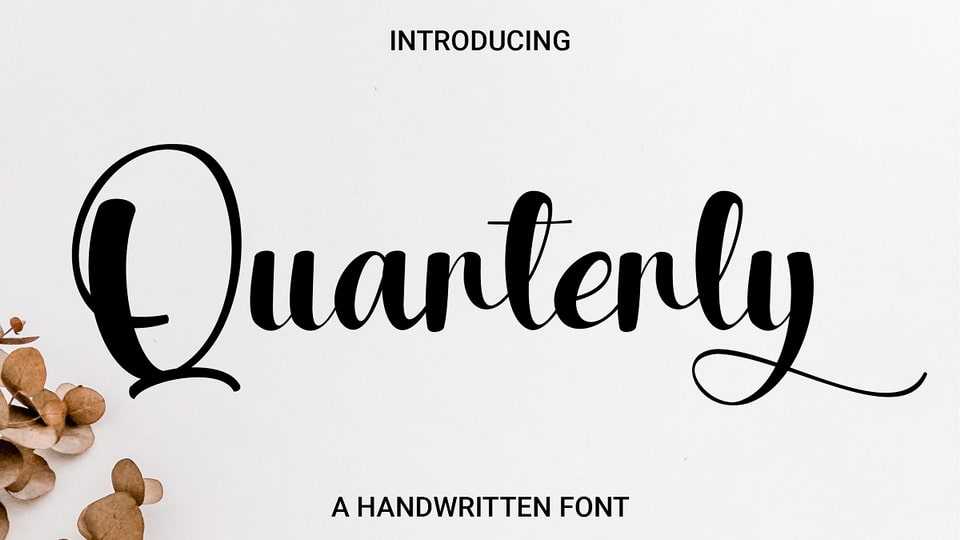
Download Quarterly font, a flowing handwritten typeface, described by an elegant touch, perfect for your favorite projects. With its incredibly distinct and timeless style. Quarterly font is perfect to create spectacular designs!
Designer: Rvandtype Studio